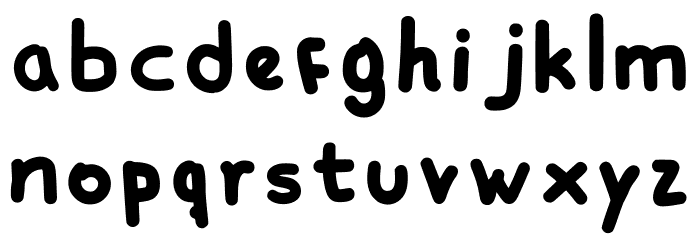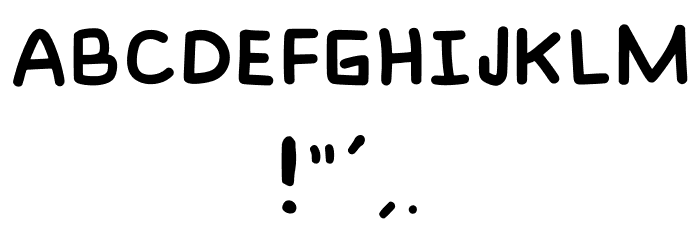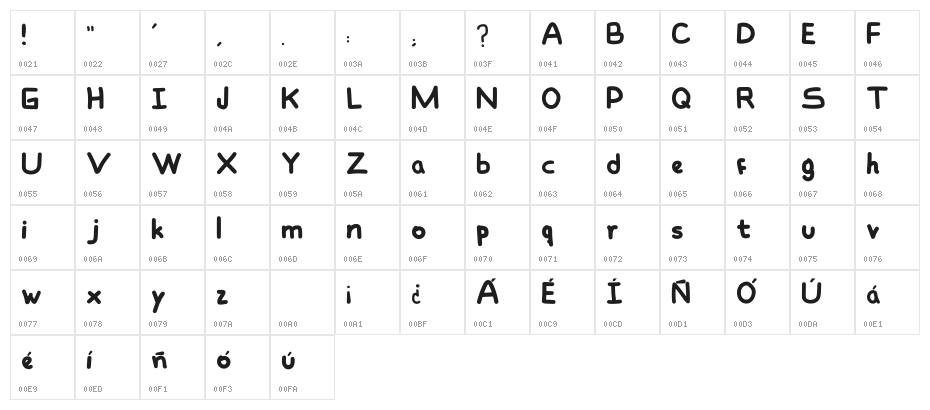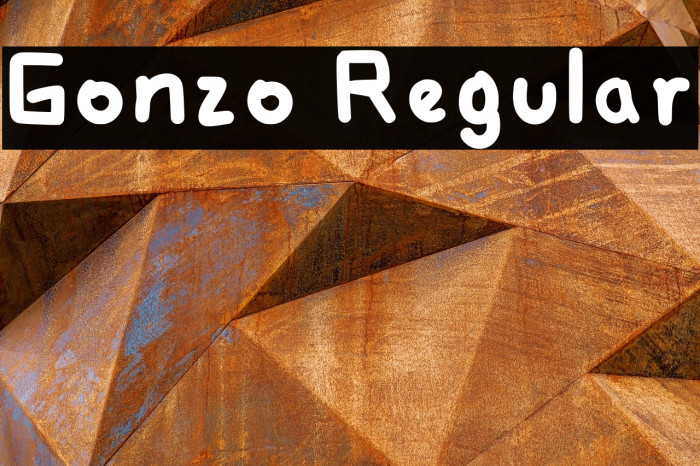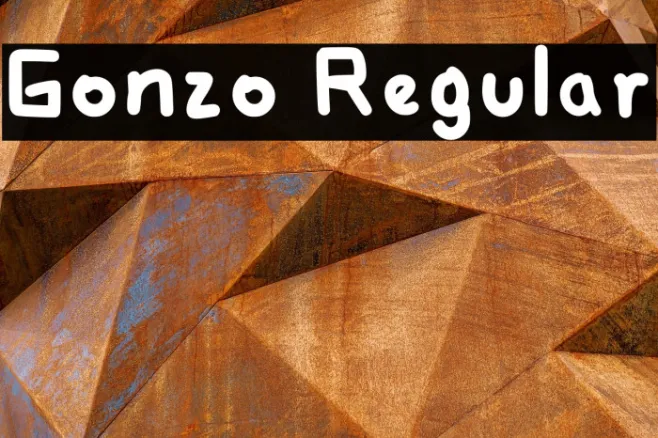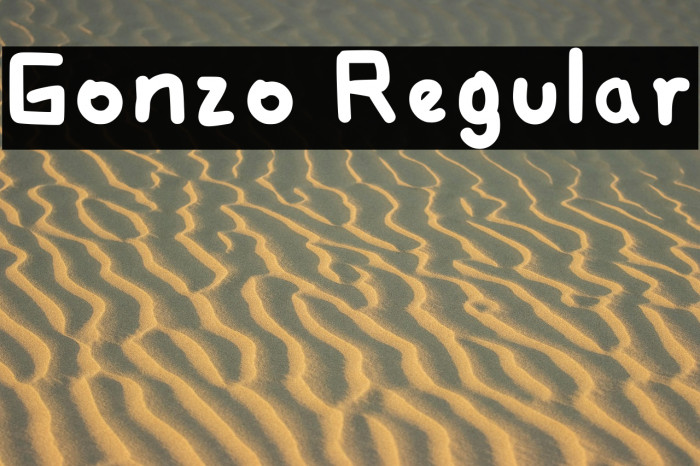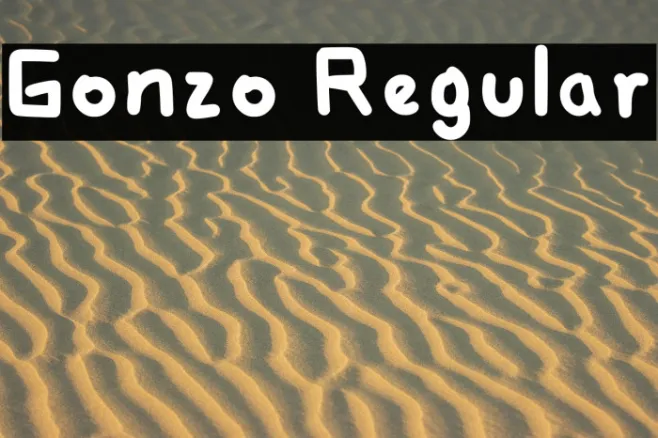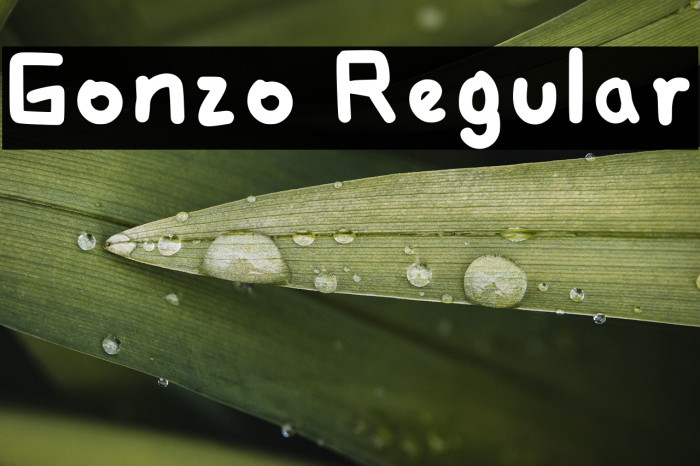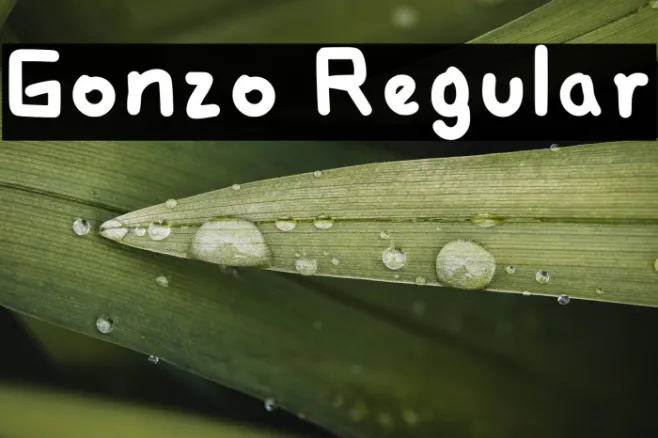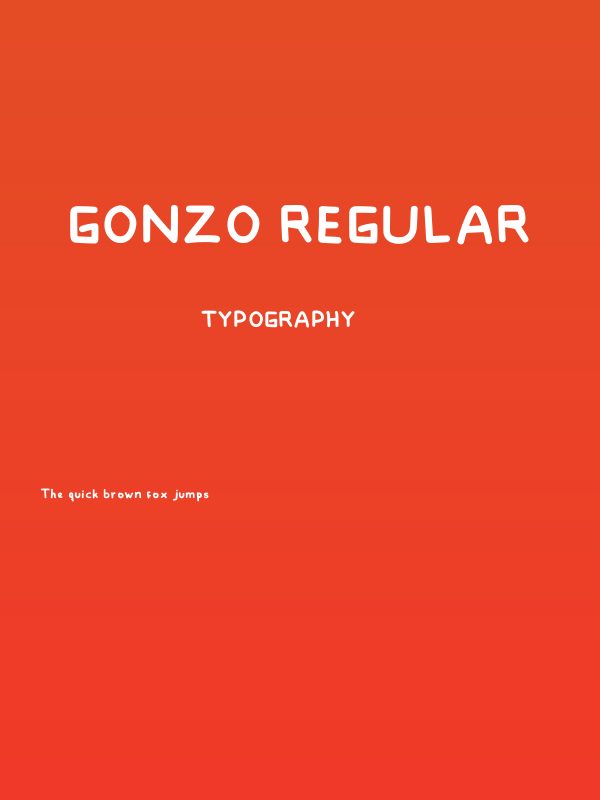
Gonzo Regular Font
This playful and quirky font features a hand-drawn aesthetic with rounded edges and a slightly irregular baseline, giving it a whimsical and informal appearance. The characters are bold and have a consistent stroke width, which contributes to its friendly and approachable style. The uppercase and lowercase letters maintain a uniform height, while the numerals and special characters blend seamlessly with the overall design. This font's unique charm makes it suitable for projects that require a touch of fun and creativity.
A playful, hand-drawn font with rounded edges and a whimsical style.
- Proposed Projects: Ideal for children's books, playful branding, greeting cards, and creative posters.